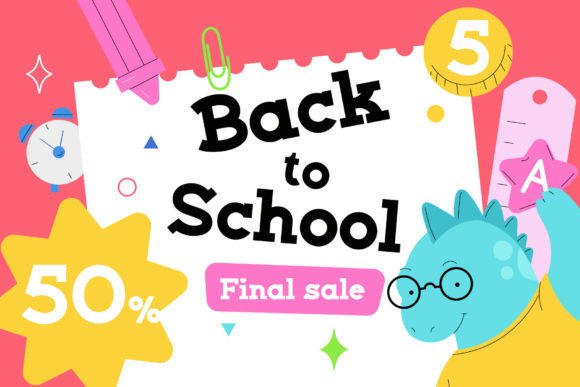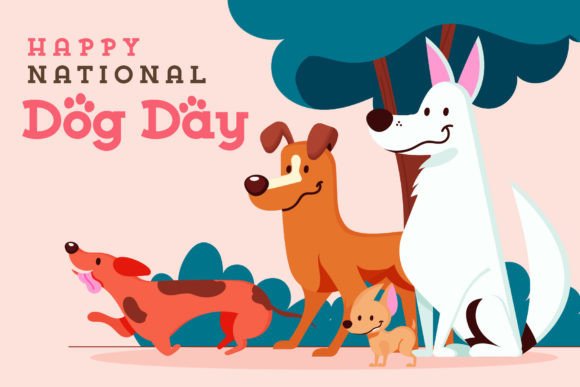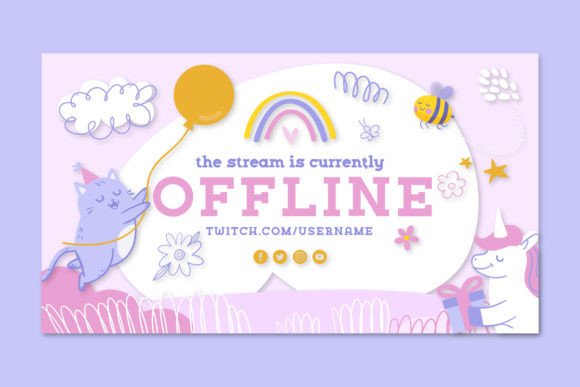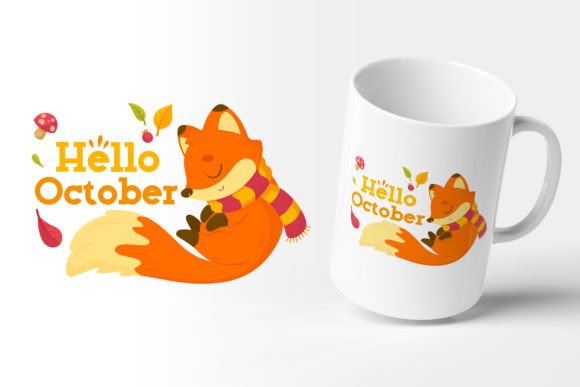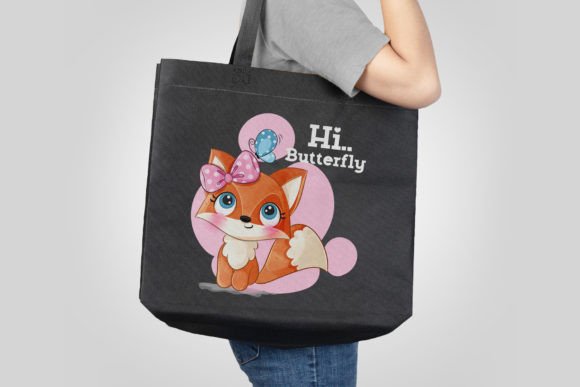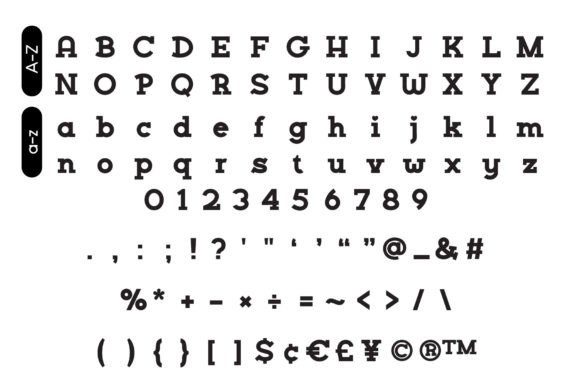
Introduction to Fox Shiny Font
Have you ever found yourself scrolling through design inspiration boards, coming across a beautifully crafted logo or typography that makes you wish you could recreate it? I know I have. And often, it’s the little details that make all the difference – like the perfect font that brings a design to life. For me, that font is Fox Shiny Font, a simple yet elegant slab serif that’s perfect for adding a touch of whimsy to any creative project.
With its high quality design and versatility, Fox Shiny Font is a valuable resource for designers looking to add a little something extra to their work. Whether you’re creating a vintage-inspired logo, a fashion brand, or a magazine cover, this font is sure to bring a level of sophistication and charm that’s hard to find with other design resources.
Key Features of Fox Shiny Font
- High-quality design: Fox Shiny Font is a premium font designed to meet the needs of creative projects, offering a unique and stylish look.
- Unique characteristics: The font features a unique blend of modern and vintage elements, making it perfect for use in creative projects that require a distinctive and eye-catching look.
Honest Review: Fox Shiny Font
As a designer, I’m always on the lookout for high-quality fonts that can elevate my creative projects. Recently, I stumbled upon Fox Shiny Font, and I’m excited to share my honest review.
What works well: ✨ The Fox Shiny Font has a sleek, modern design that’s perfect for digital projects. It’s also incredibly versatile, with a range of weights and styles to choose from. I’ve used it for a variety of projects, from logo designs to social media graphics, and it always adds a touch of sophistication.
One of the standout features of Fox Shiny Font is its transparent background, which makes it easy to use as a overlay or a text element in your designs.
Here are some of the key benefits of Fox Shiny Font:
- Range of weights and styles to choose from
However, there are a few limitations to consider: ⚠️ The font is not ideal for print projects, as it can be difficult to read at small sizes. Additionally, the font is a bit too flashy for more serious or professional designs.
Overall, I’m impressed with Fox Shiny Font and would highly recommend it for digital projects that require a touch of modern style.